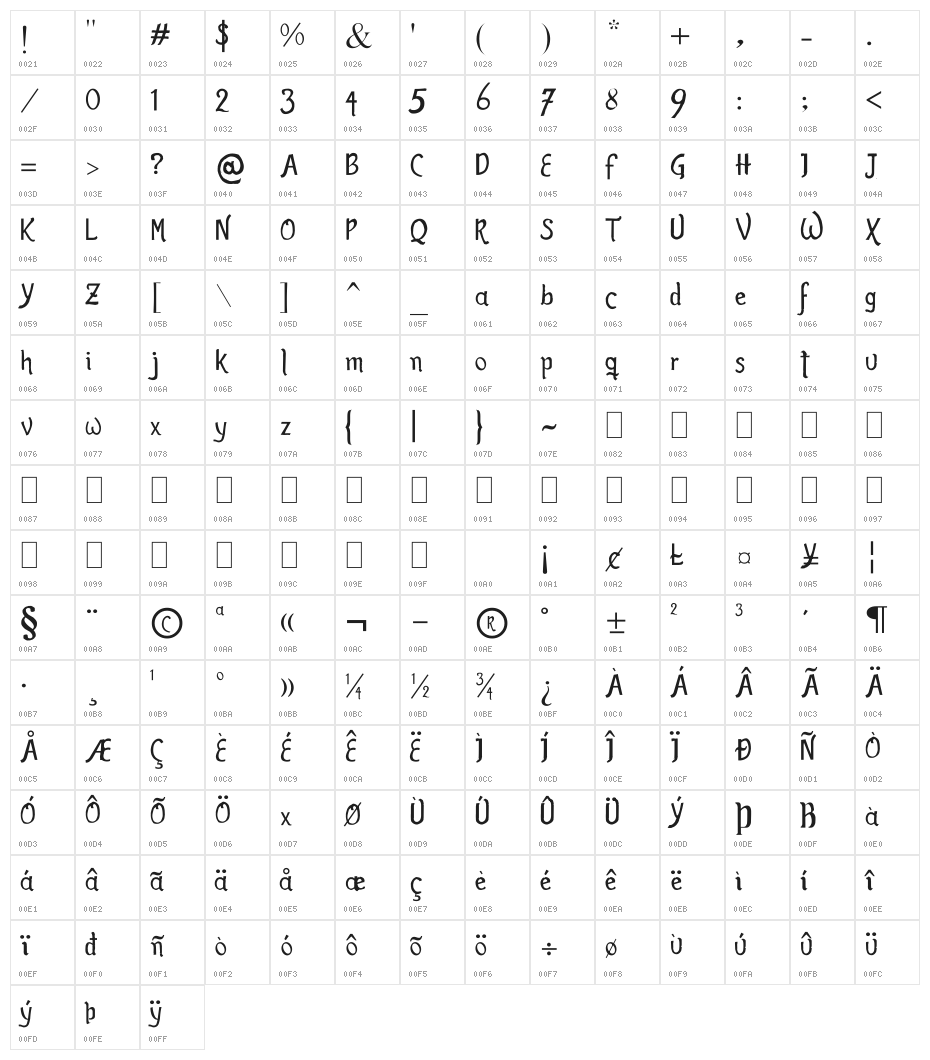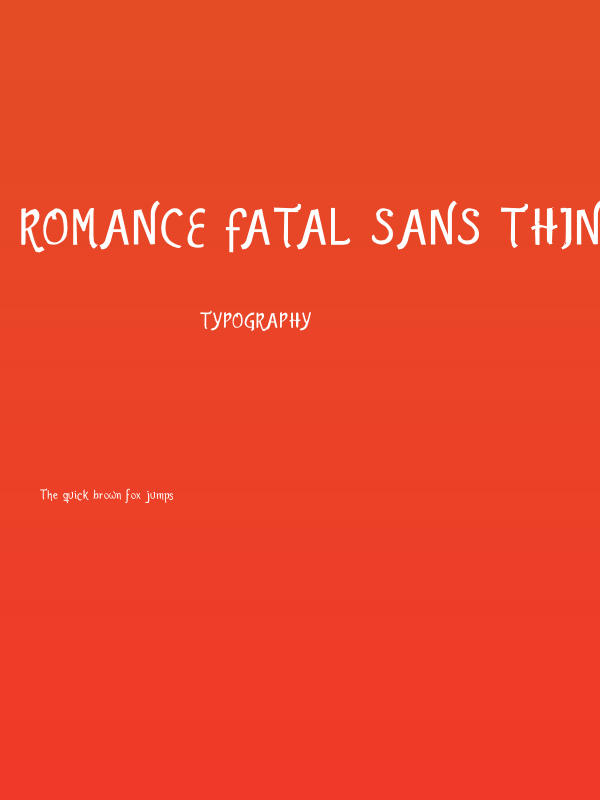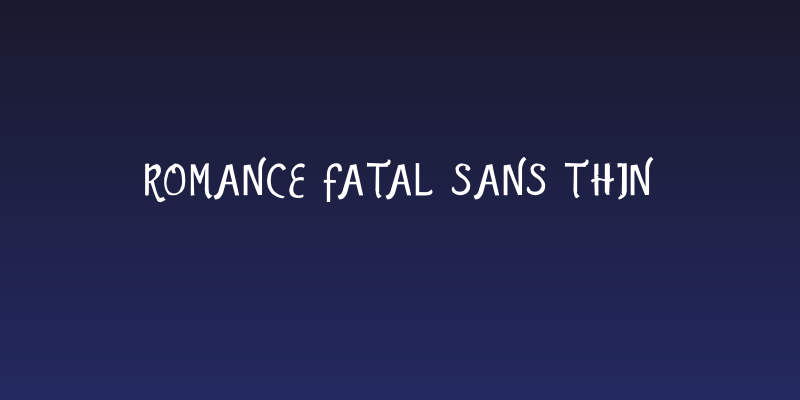
Romance Fatal Sans Thin Font
Romance Fatal Sans Thin Description
This font features a unique blend of modern and vintage styles, characterized by its decorative and slightly whimsical appearance. The uppercase letters exhibit a bold, confident stance with subtle curves and flares that add a touch of elegance. The lowercase letters maintain a consistent style, with some characters displaying distinctive loops and swashes that enhance its decorative nature. The numerals are bold and clear, ensuring readability while maintaining the overall artistic flair. Special characters are thoughtfully designed to match the font's aesthetic, making it suitable for creative and expressive projects.
| Use Case | Headlines, Logos, Artistic designs |
| Proposed Projects | Ideal for creative projects such as invitations, posters, branding, and artistic designs where a touch of elegance and uniqueness is desired. |